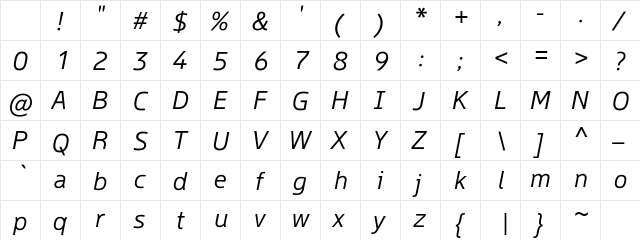
Complete Wasco Sans Italic glyph index. Displaying only characters natively supported by Wasco Sans Italic font.
Wasco Sans is a composed and adaptable typeface that performs quietly and consistently across a wide range of design contexts. The slanted form adds forward momentum and visual energy.
Pro Tip: Use Wasco Sans for emphasis, pull quotes, and subheadings where its slanted energy can add rhythm to the layout.